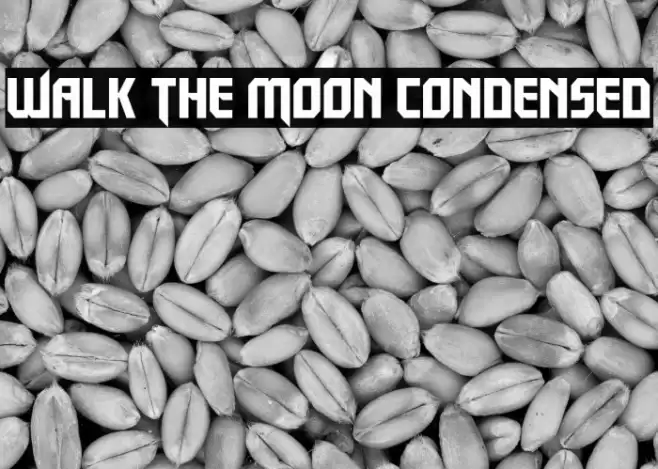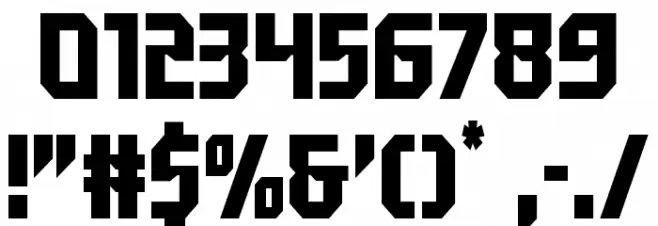
Walk The Moon Condensed Font
Walk The Moon Condensed Description
This font features a bold, geometric design with sharp angles and a futuristic aesthetic. The characters are condensed, giving a compact and efficient appearance. The uppercase letters are particularly striking, with a uniform height and width that create a cohesive look. The numbers and special characters maintain the same angular style, ensuring consistency across all elements. This font's unique style makes it ideal for projects that require a modern and edgy feel.
A bold, geometric, and condensed font with a futuristic aesthetic from Regular fonts.
- Proposed Projects: Ideal for sci-fi themed posters, video game titles, and modern branding projects.
- Character Spacing: Tight